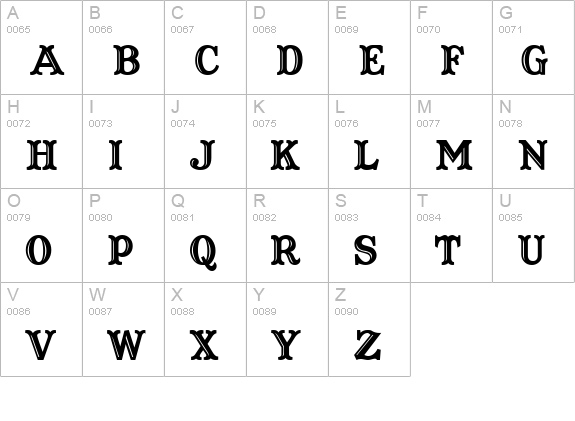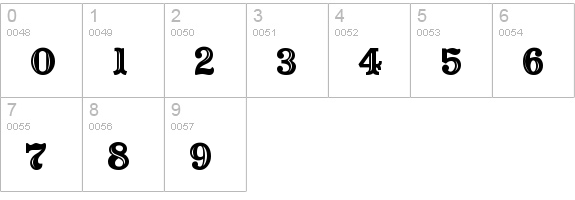
Captain Howdy font is a whimsical and playful typeface that exudes a sense of fun and creativity. With its quirky and unique design, this font is perfect for adding a touch of personality to any project. Whether you are creating invitations, posters, or branding materials, Captain Howdy font is sure to make your text stand out. The best part about Captain Howdy font is that it is completely free! You can easily download this font for free at FontsMarket.com and start using it in your designs right away. Don't miss out on the opportunity to add this charming and eye-catching font to your collection today.